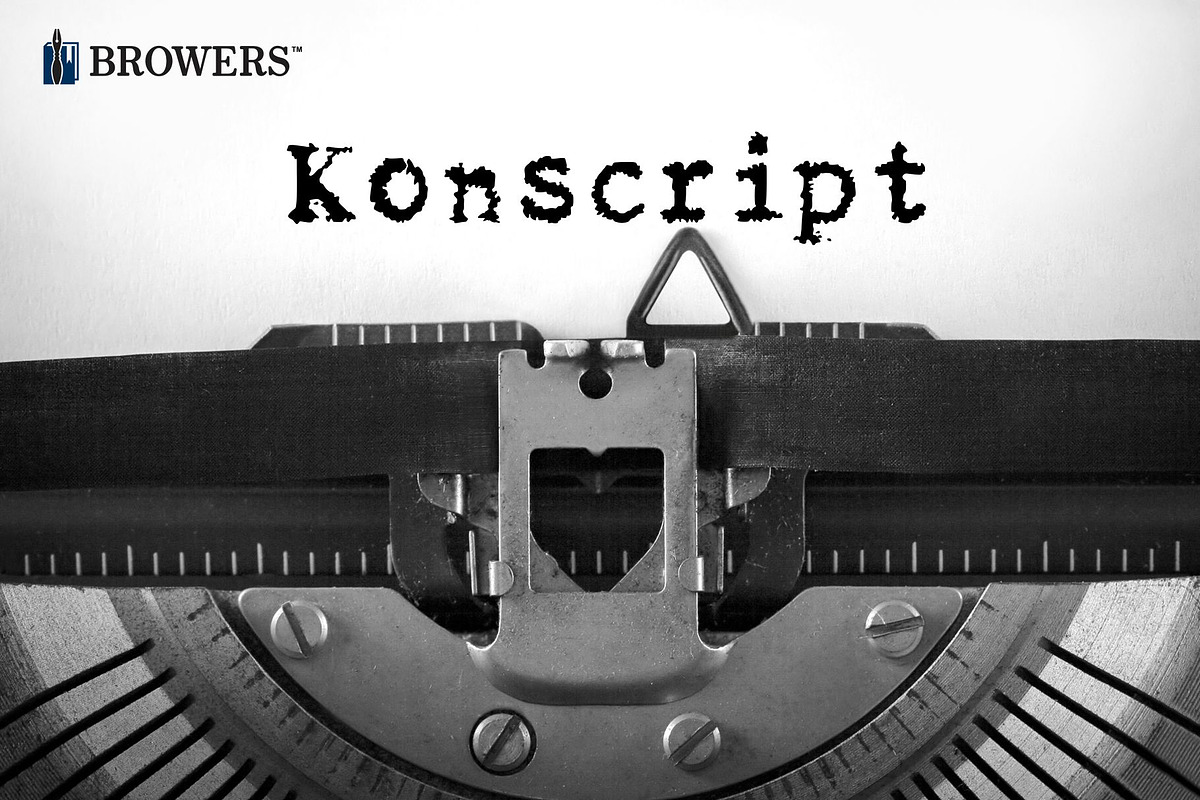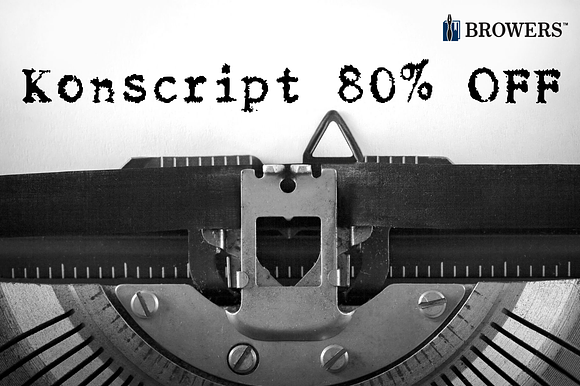
Konscript Font 80% Off
Konscript is a distressed typewriter font. With a special sale, Konscript is 80% off.
Konscript Font 80% Off by Michael Browers fits naturally into Branding, posters, packaging, typography.